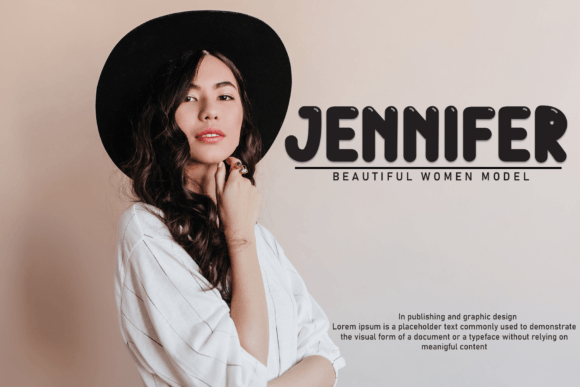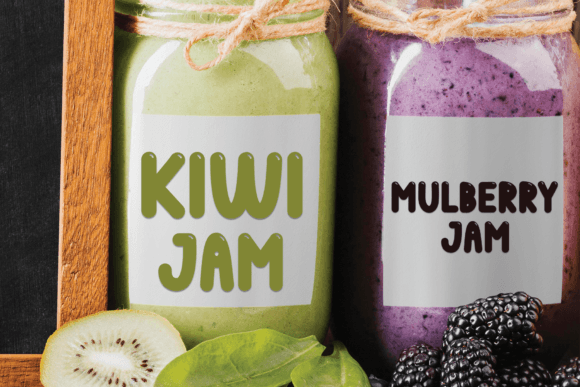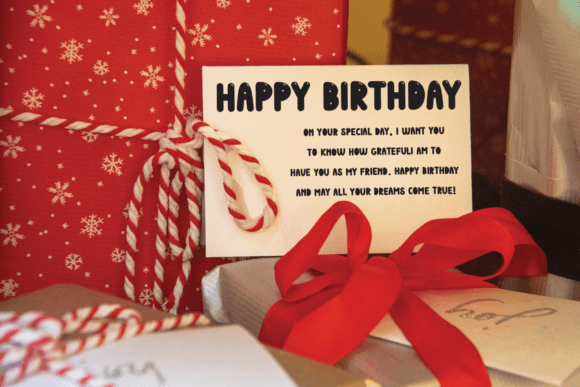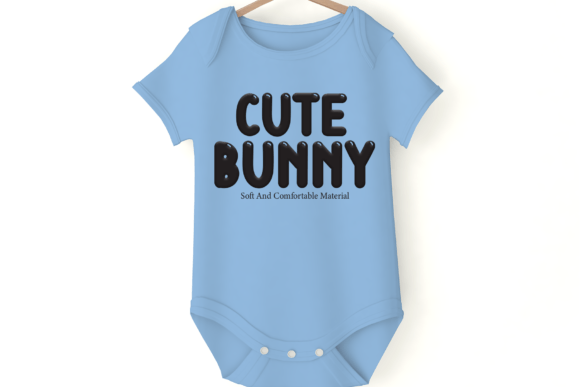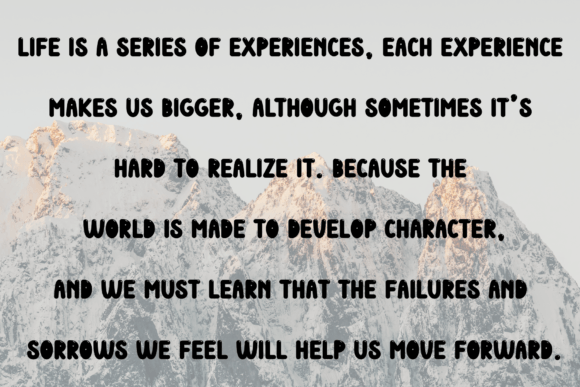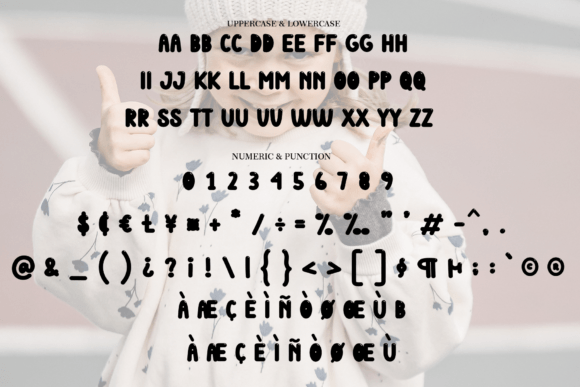
Bravo Font: The Ultimate Choice for Fun and Playful Designs
Are you a designer or crafter looking for a font that can add a touch of fun and playfulness to your projects? Look no further than the Bravo Font! This bold and thick font is perfect for creating eye-catching designs that will grab anyone’s attention. In this article, we’ll explore the features and benefits of the Bravo Font, and how it can be used to elevate your branding and packaging projects.
What is Bravo Font?
Bravo Font is a chubby font that features a unique combination of fun and creativity. Its bold and thick design makes it perfect for creating designs that are playful, yet professional. The font’s chunky letters are carefully crafted to provide a friendly and approachable feel, making it ideal for a variety of projects, from branding and packaging to posters and flyers.
Key Features of Bravo Font
- Bold and Thick Design: The Bravo Font features a bold and thick design that makes it perfect for creating eye-catching designs.
- Fun and Playful: The font’s chunky letters and friendly feel make it ideal for creating fun and playful designs.
- Versatile: The Bravo Font can be used on a variety of projects, from branding and packaging to posters and flyers.
- Easy to Read: Despite its bold design, the Bravo Font is easy to read, making it perfect for use in headlines and titles.
Benefits of Using Bravo Font
So, why should you choose the Bravo Font for your next project? Here are just a few benefits of using this amazing font:
- Grabs Attention: The Bravo Font’s bold and thick design makes it perfect for grabbing attention and drawing the eye.
- Conveys Fun and Creativity: The font’s playful and friendly feel makes it ideal for conveying a sense of fun and creativity.
- Versatile: The Bravo Font can be used on a variety of projects, making it a great addition to any designer’s toolkit.
How to Use Bravo Font
So, how can you use the Bravo Font in your next project? Here are a few ideas to get you started:
- Branding and Packaging: Use the Bravo Font to create eye-catching branding and packaging designs that will stand out on store shelves.
- Posters and Flyers: The font’s bold design makes it perfect for use in posters and flyers, where you want to grab attention and draw the eye.
- Social Media Graphics: Use the Bravo Font to create fun and playful social media graphics that will help you stand out from the crowd.
- Invitations and Cards: The font’s friendly feel makes it ideal for use in invitations and cards, where you want to convey a sense of fun and creativity.
Tips for Getting the Most Out of Bravo Font
Here are a few tips for getting the most out of the Bravo Font:
- Use it Sparingly: While the Bravo Font is bold and eye-catching, it can be overwhelming if used too much. Use it sparingly to create emphasis and draw attention.
- Pair it with Other Fonts: The Bravo Font pairs well with other fonts, such as script fonts or sans-serif fonts. Experiment with different pairings to find the one that works best for your project.
- Experiment with Colors: The Bravo Font looks great in a variety of colors, from bright and bold to pastel and soft. Experiment with different colors to find the one that works best for your project.
In conclusion, the Bravo Font is a bold and playful font that is perfect for designers and crafters looking to add a touch of fun and creativity to their projects. With its unique combination of bold and thick design, friendly feel, and versatility, the Bravo Font is a great addition to any designer’s toolkit. Whether you’re working on branding and packaging, posters and flyers, or social media graphics, the Bravo Font is sure to help you create eye-catching designs that will grab attention and draw the eye.